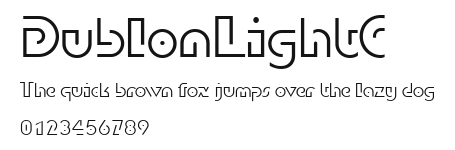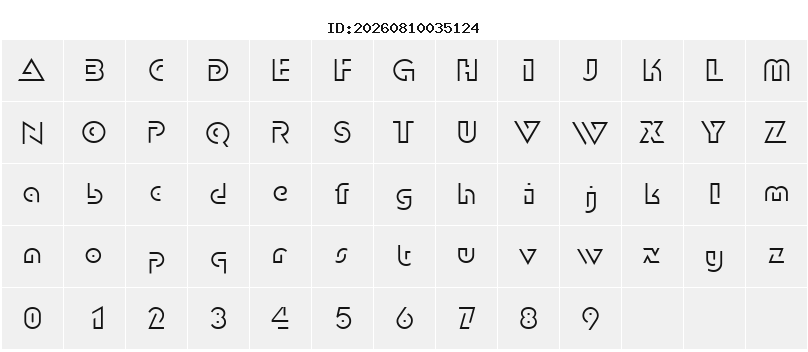
• Font Name: DublonLightC
• Full Font Name: PT Dublon Light Cyrillic
• Manufacturer: ParaType, Inc
• Description: Designed in 1999 for ParaType, based on the original artwork of the Ukrainian graphic designer Oleg Karpinsky (Vinnitsa). For use in advertising and display typography.
DublonLightC.ttf is a modern, elegant sans-serif font designed for ultimate readability and visual harmony. Perfect for branding, headlines, web design, and print materials.